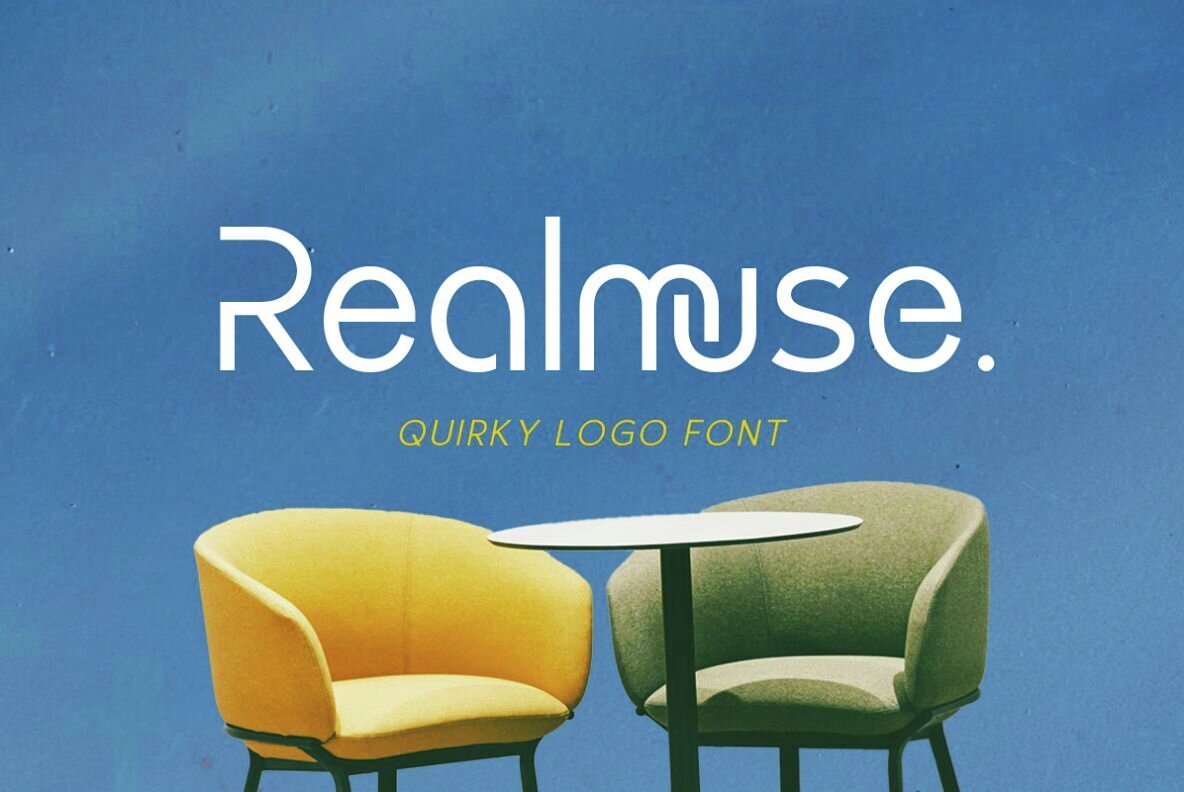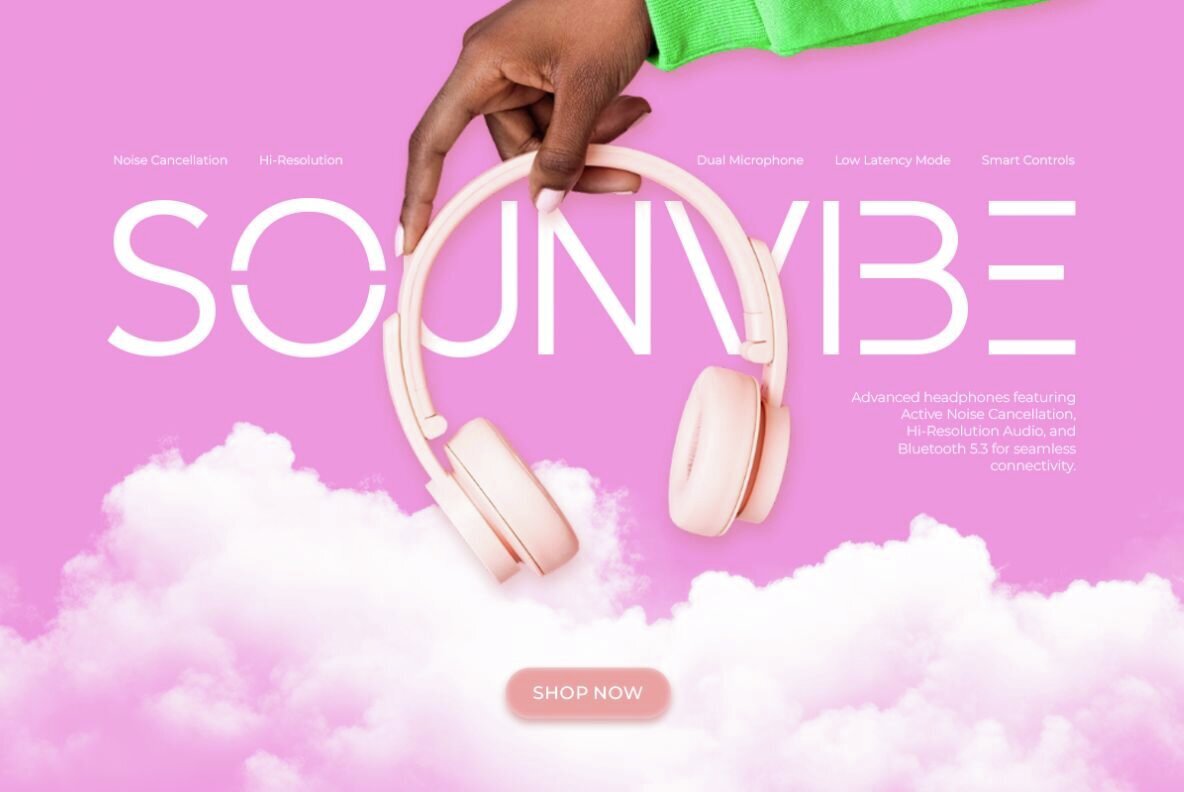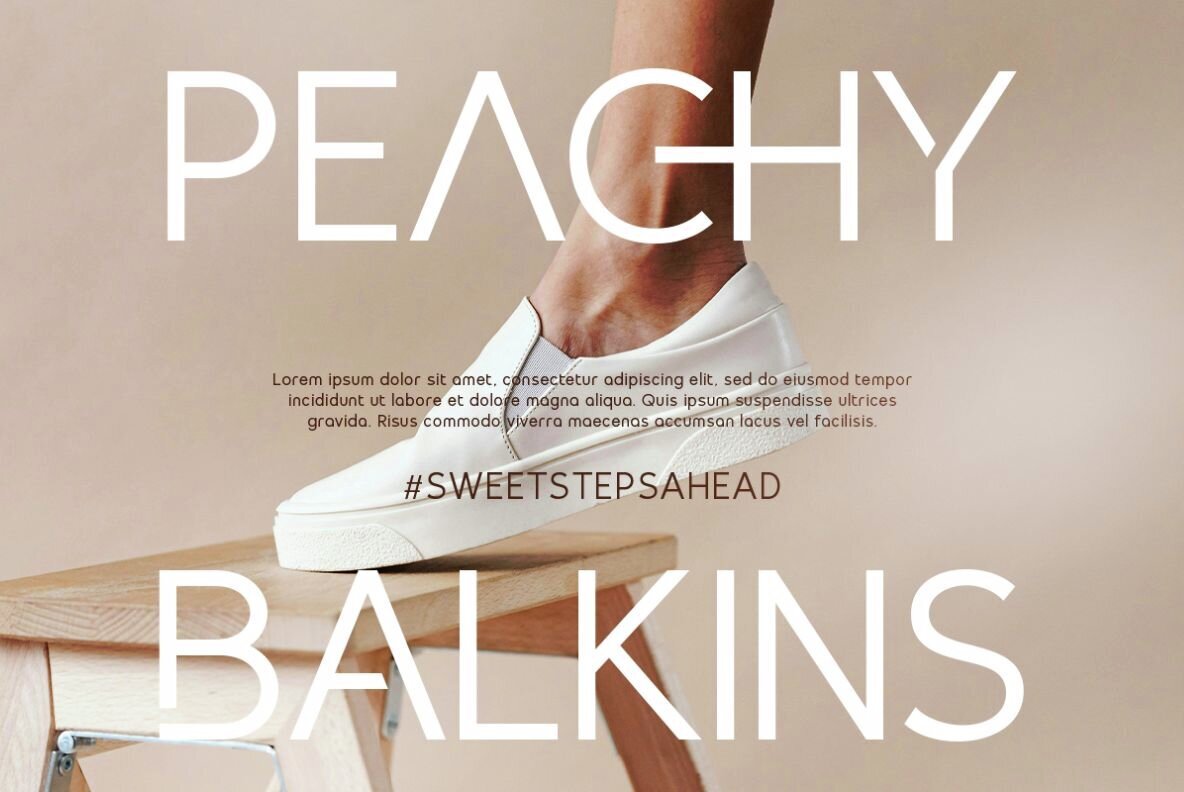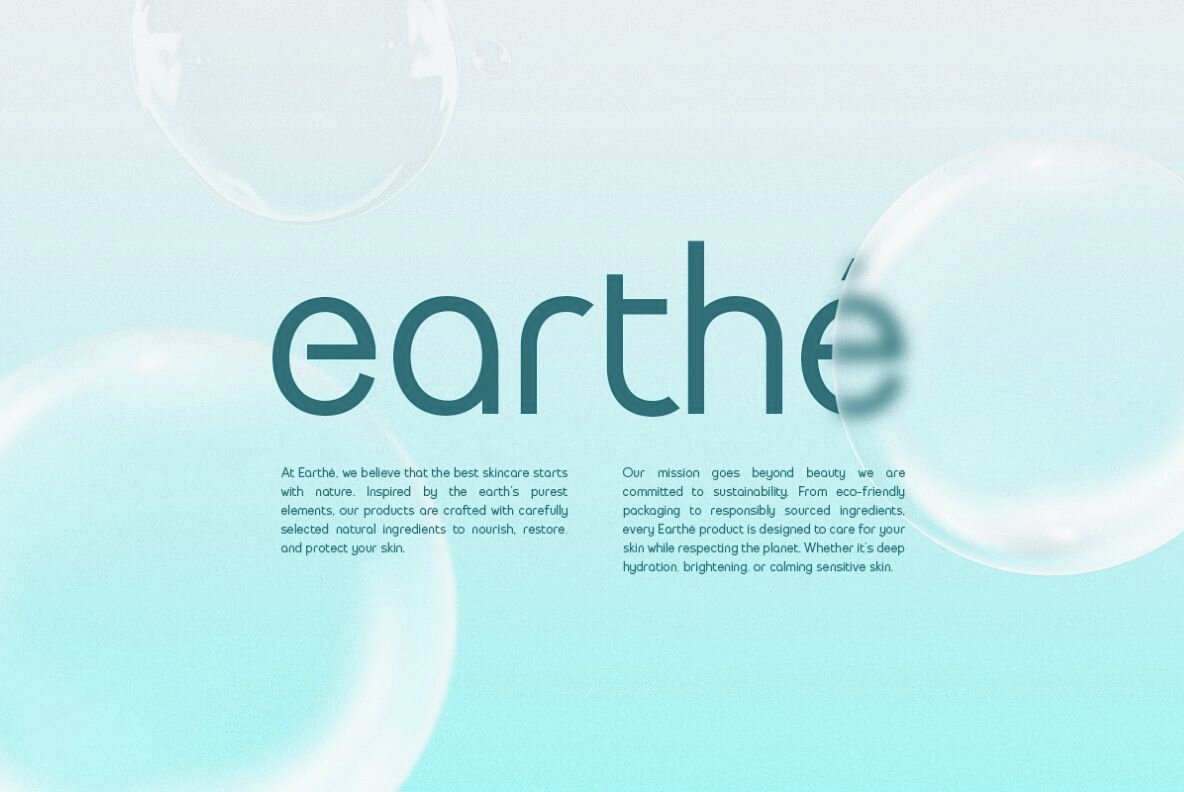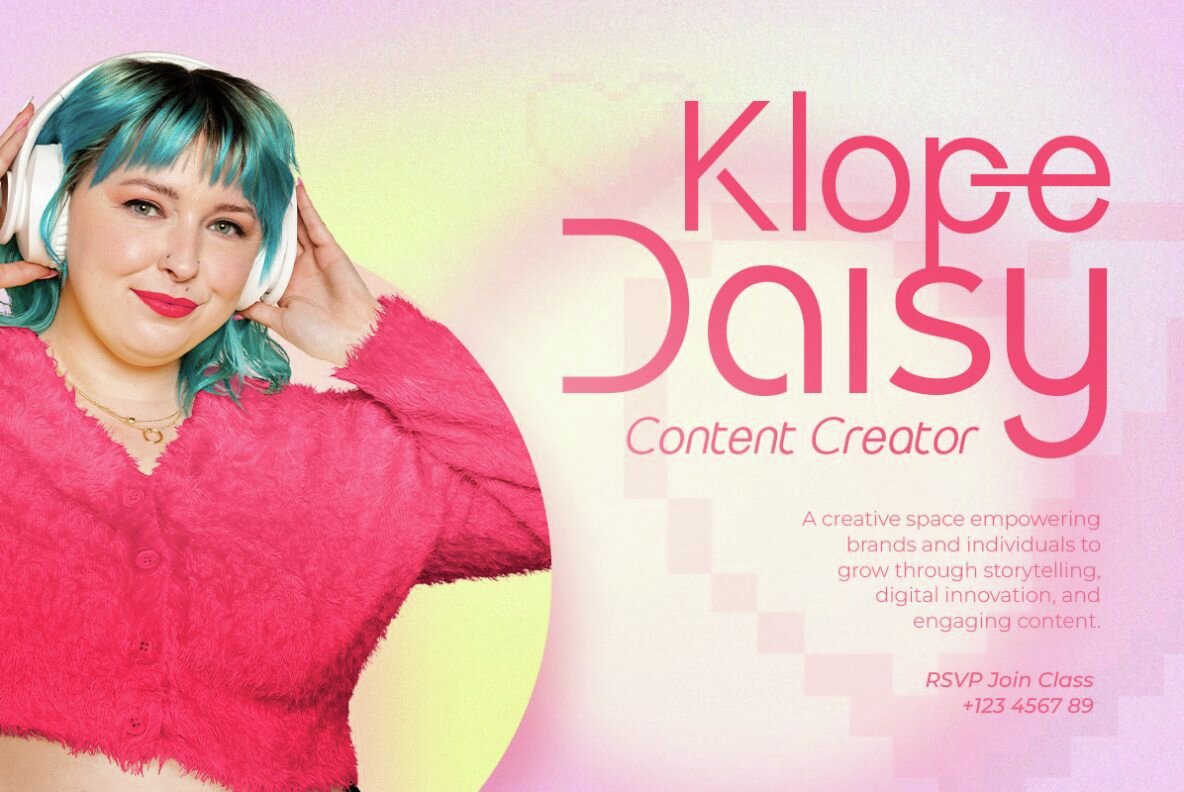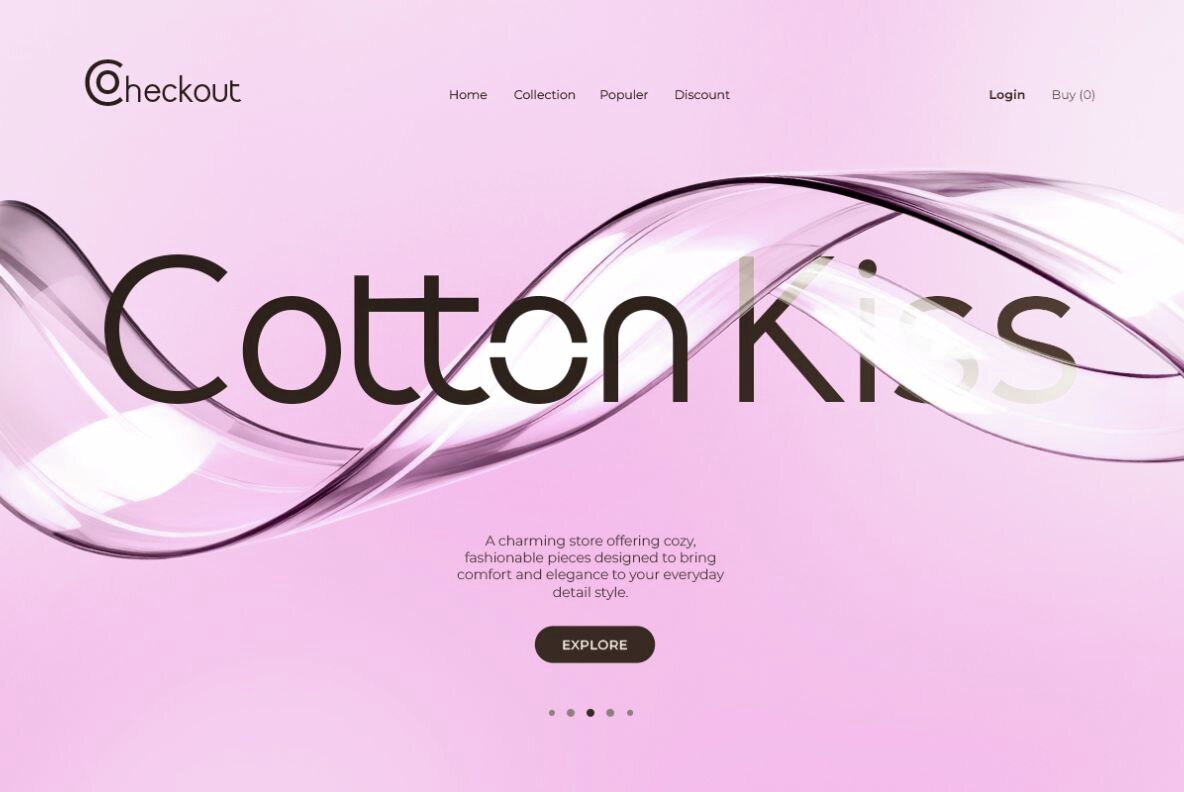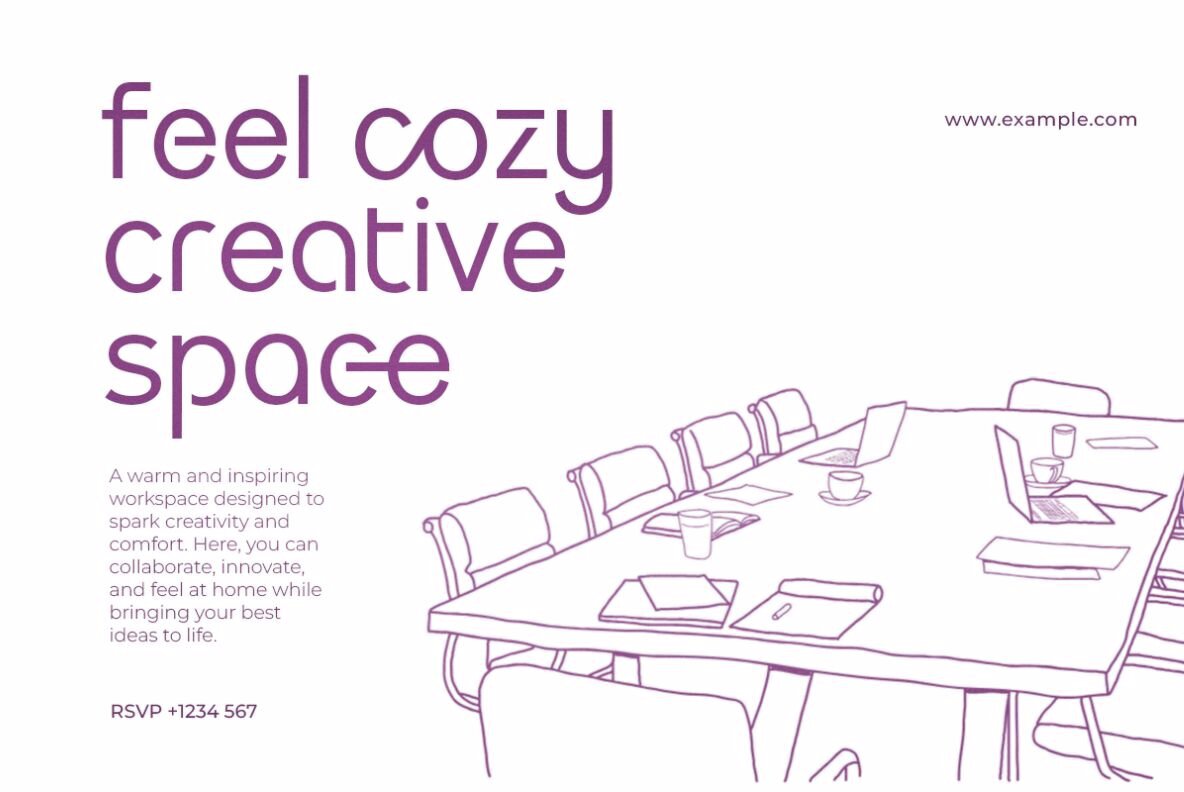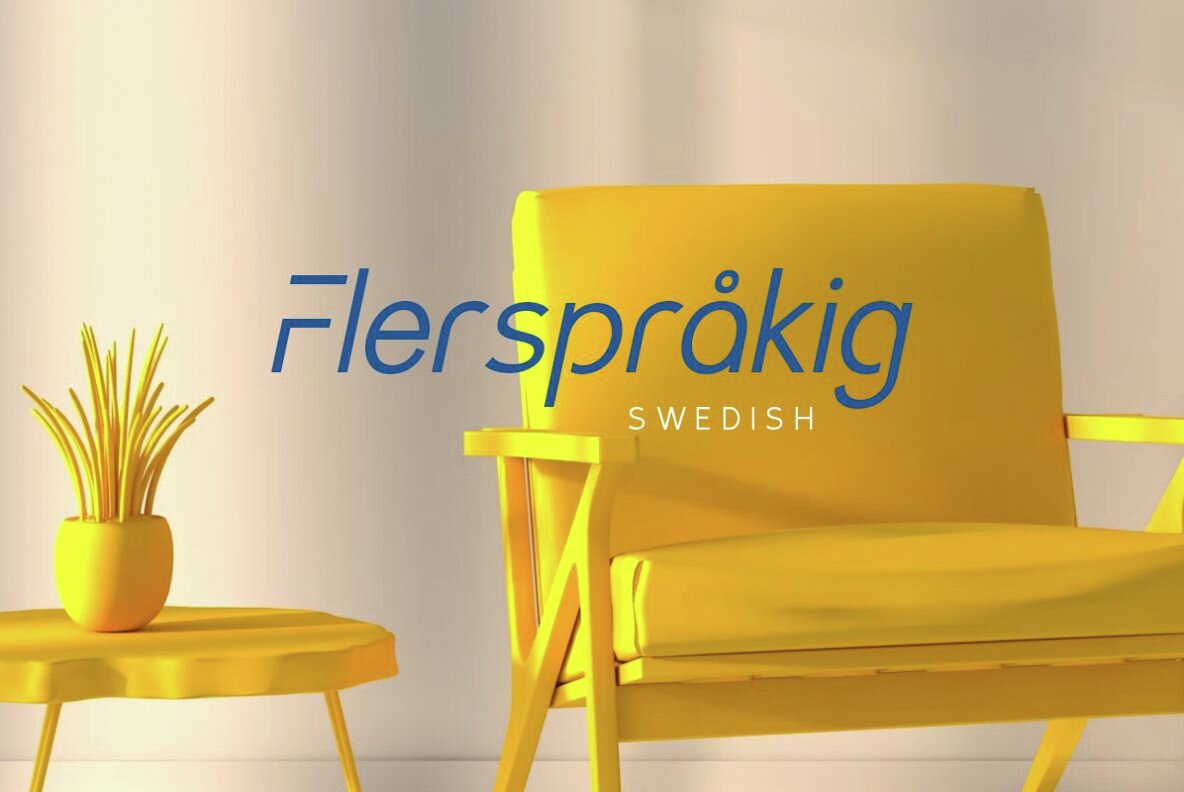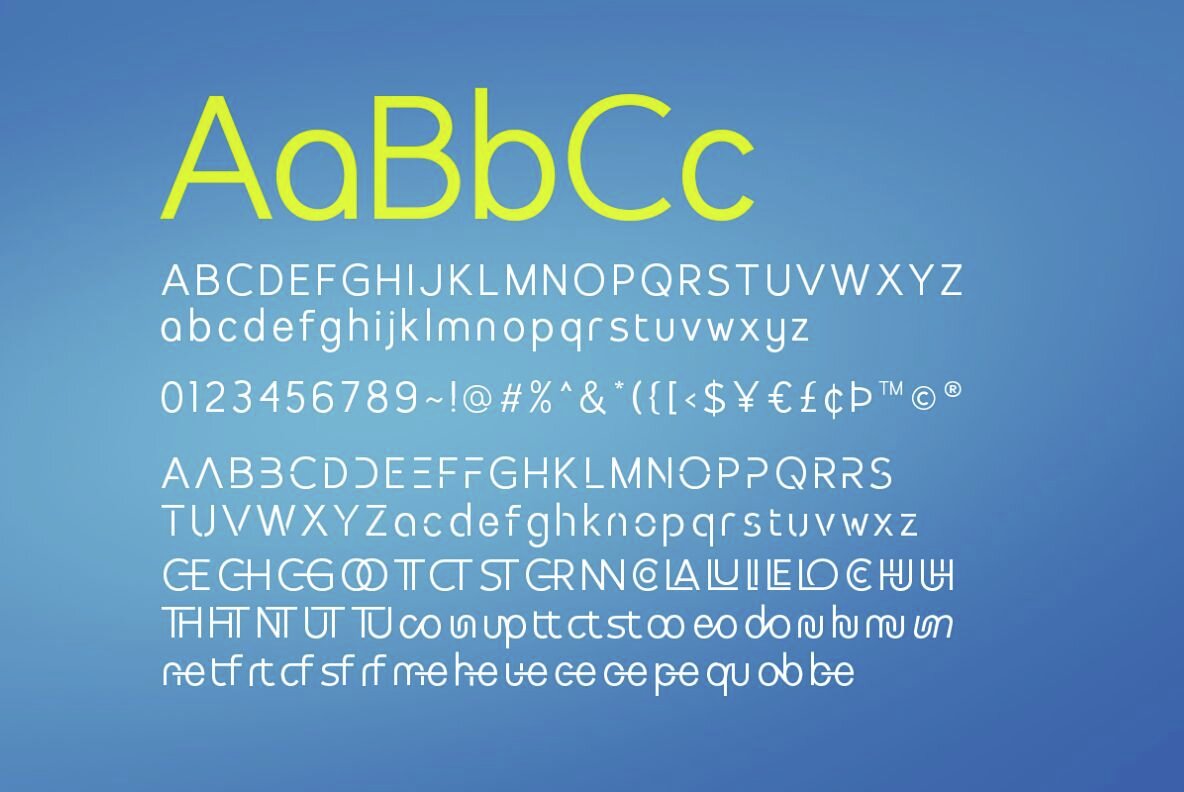
Realmuse Font
Realmuse Regular
Realmuse Italic
Realmuse stands out as a distinctive logo font, inspired by the clean lines of sans serif typography. Its unique, rounded, minimalist design promises to elevate your logo with a touch of modern flair. Realmuse features stylish ligatures and stencil alternates, enhancing the attractiveness of any project. Ideal for branding, logos, and a variety of design applications. Realmuse ensures your work remains current and engaging. The typeface also supports multilingual text, expanding its utility across global projects.Realmuse Typeface